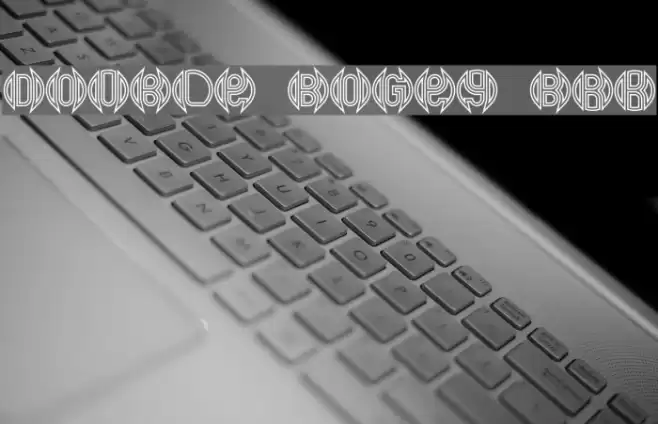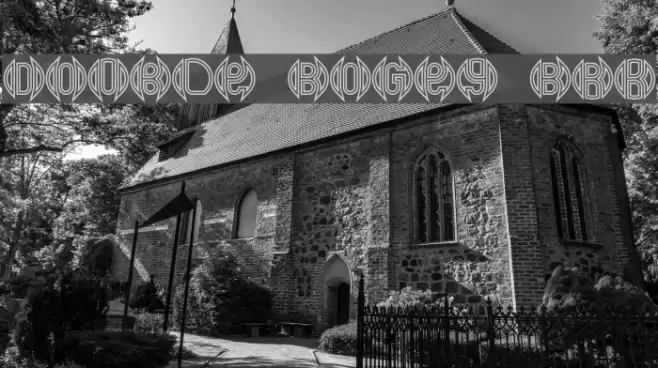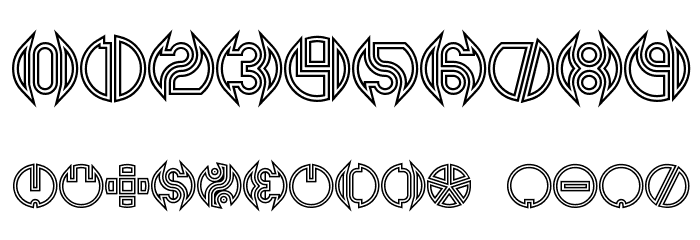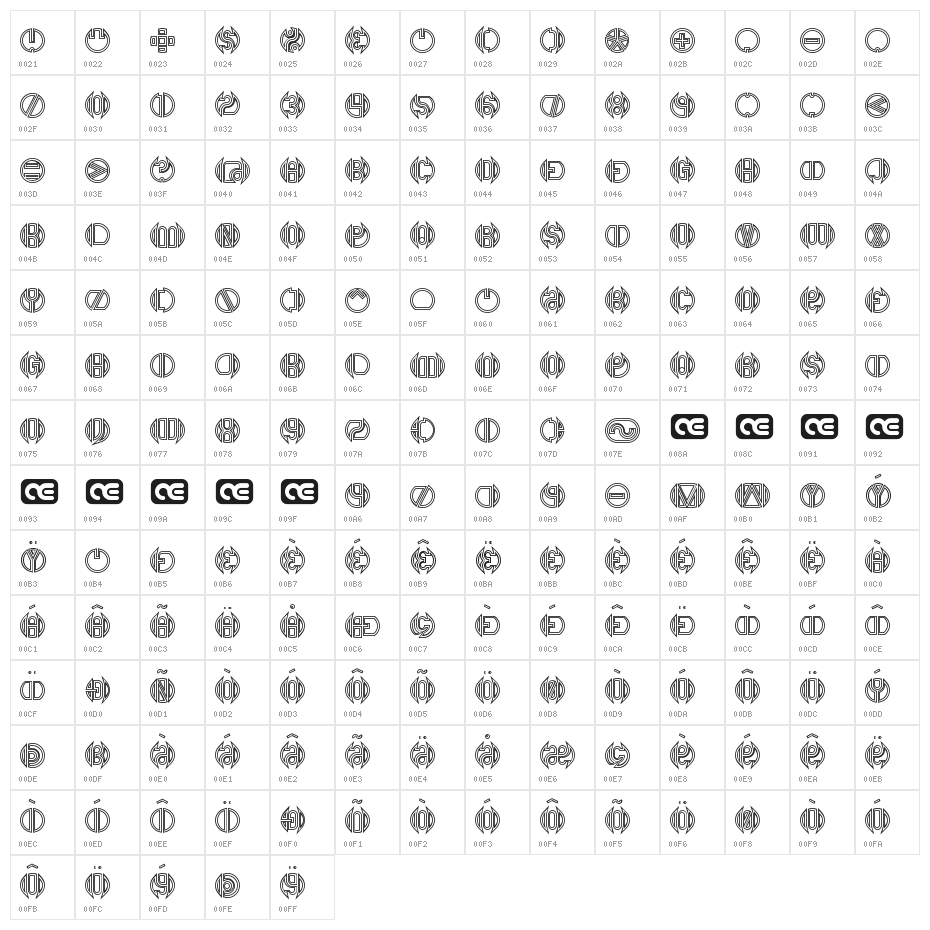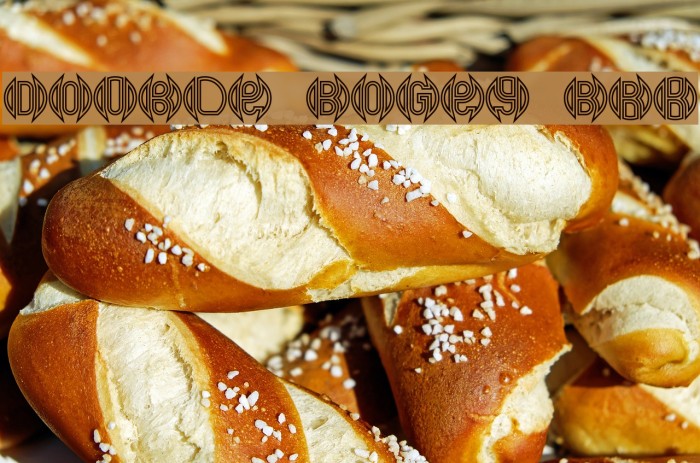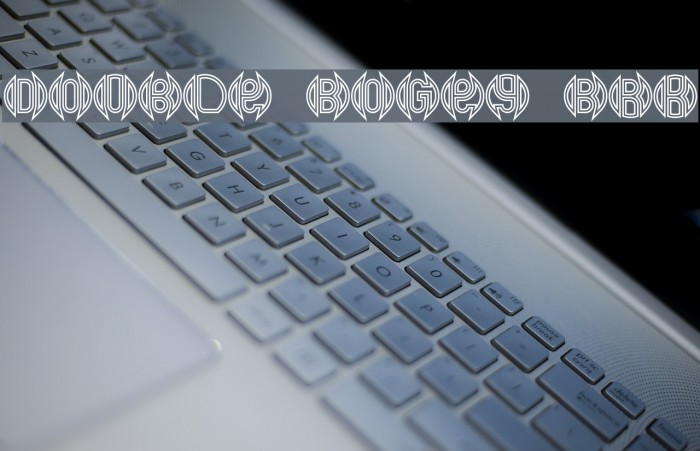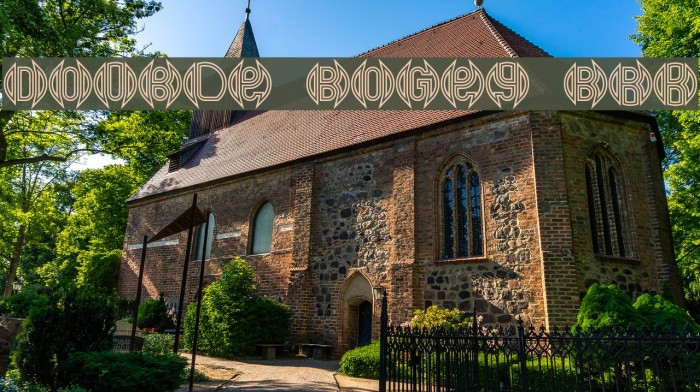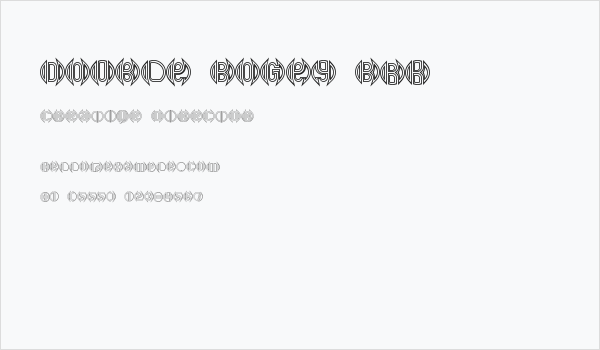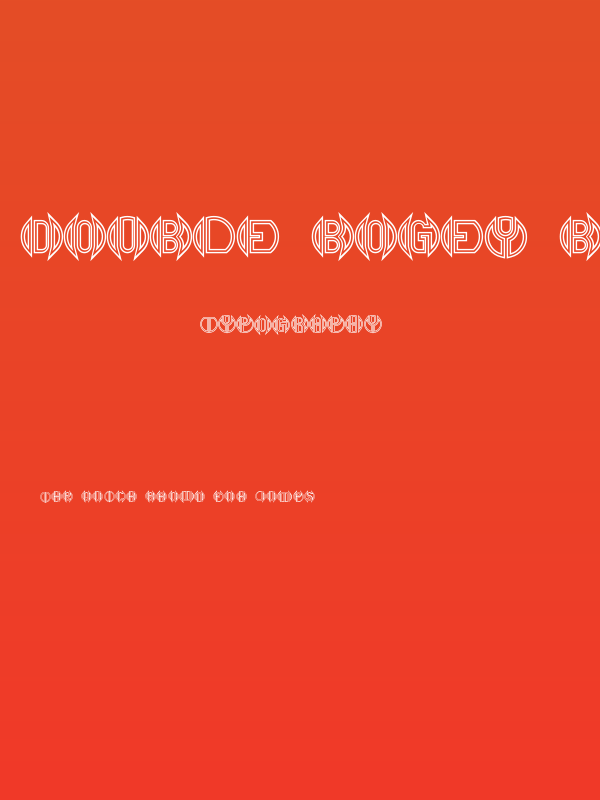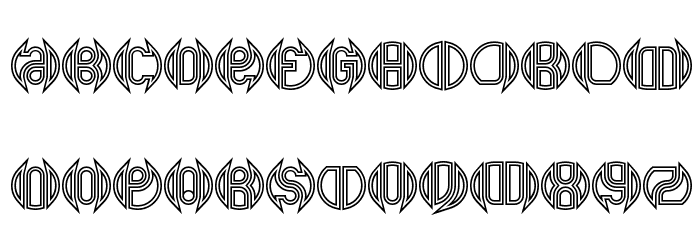
Double Bogey BRK Font
Double Bogey BRK Description
This font features a unique, geometric design with bold, circular outlines that encapsulate each character. The letters and numbers are stylized with symmetrical, angular elements that create a futuristic and abstract appearance. The consistent use of thick lines and enclosed shapes gives the font a cohesive and striking look, making it ideal for attention-grabbing designs. The characters are evenly spaced, maintaining a balanced and harmonious visual flow. This font's distinct style is perfect for projects that require a modern and unconventional aesthetic.
A geometric, abstract font with bold, circular outlines and symmetrical design from Uncategorized fonts.
- Proposed Projects: Ideal for logos, posters, album covers, and any design needing a futuristic or abstract touch.
- Overall Style: Futuristic, Abstract
- Use Case: Logos, Posters, Album covers